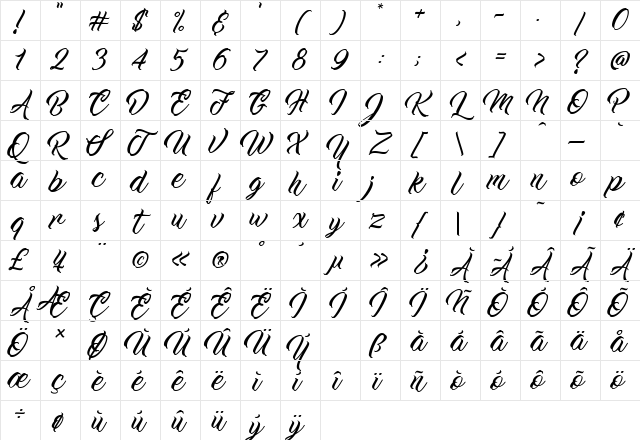
Complete Work In Progress Regular glyph index. Displaying only characters natively supported by Work In Progress Regular font.
Work In Progress is a composed and adaptable typeface that performs quietly and consistently across a wide range of design contexts.